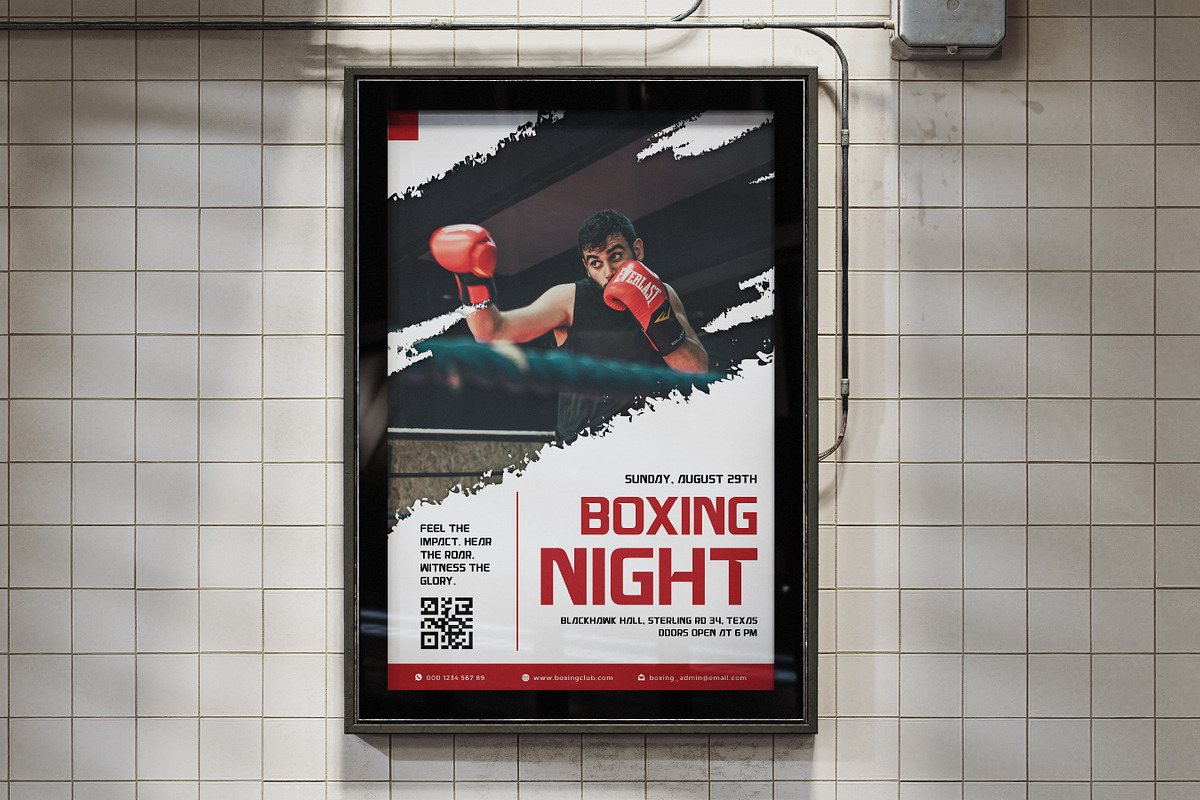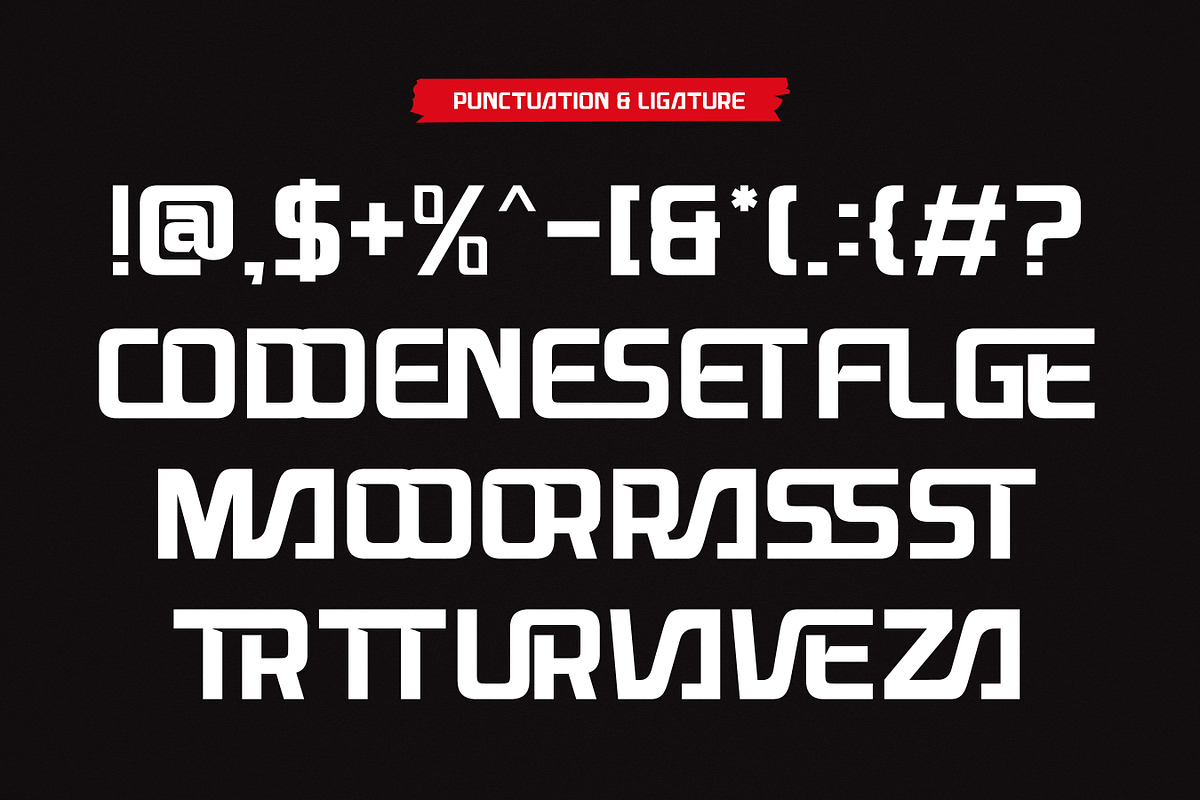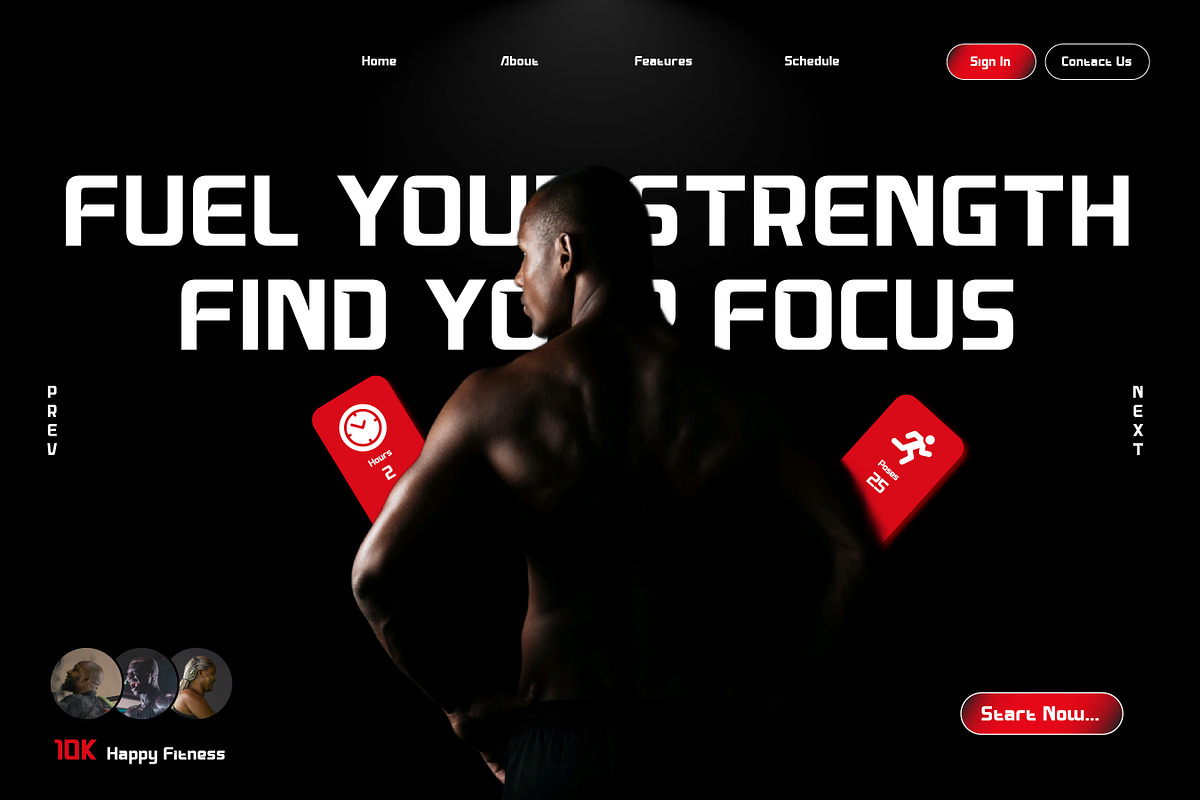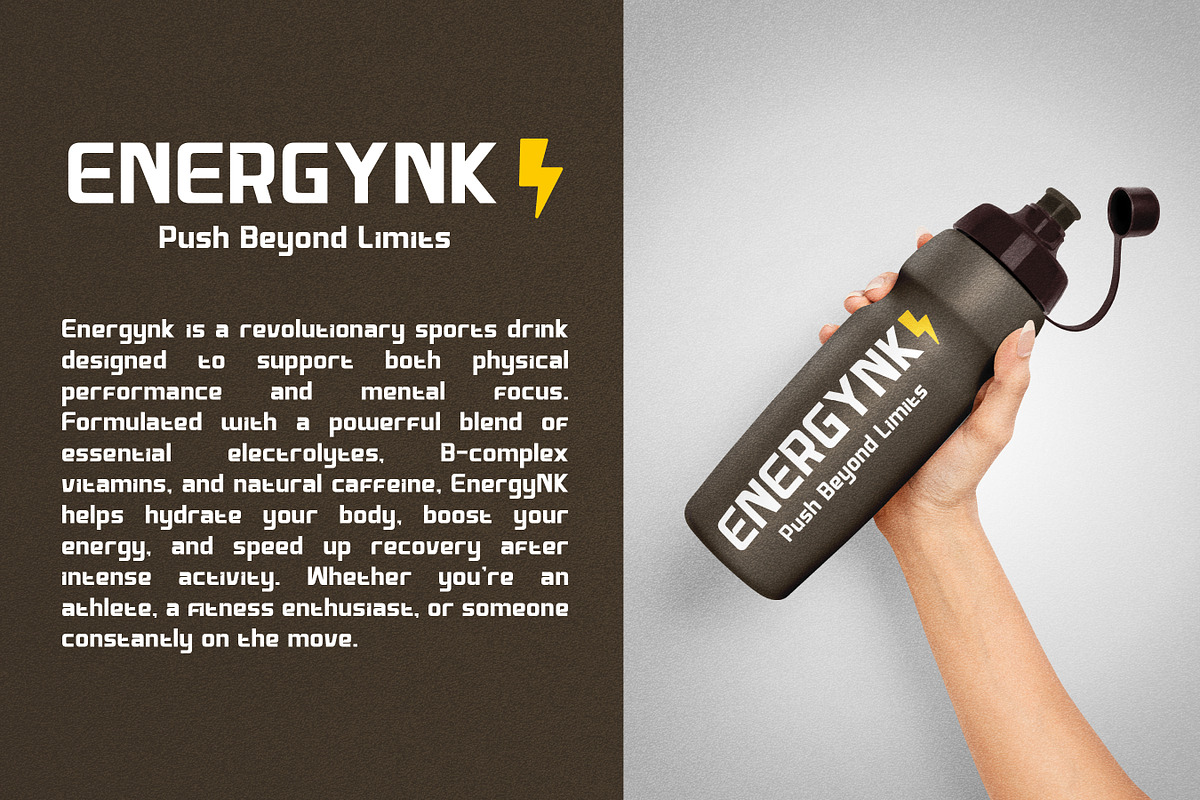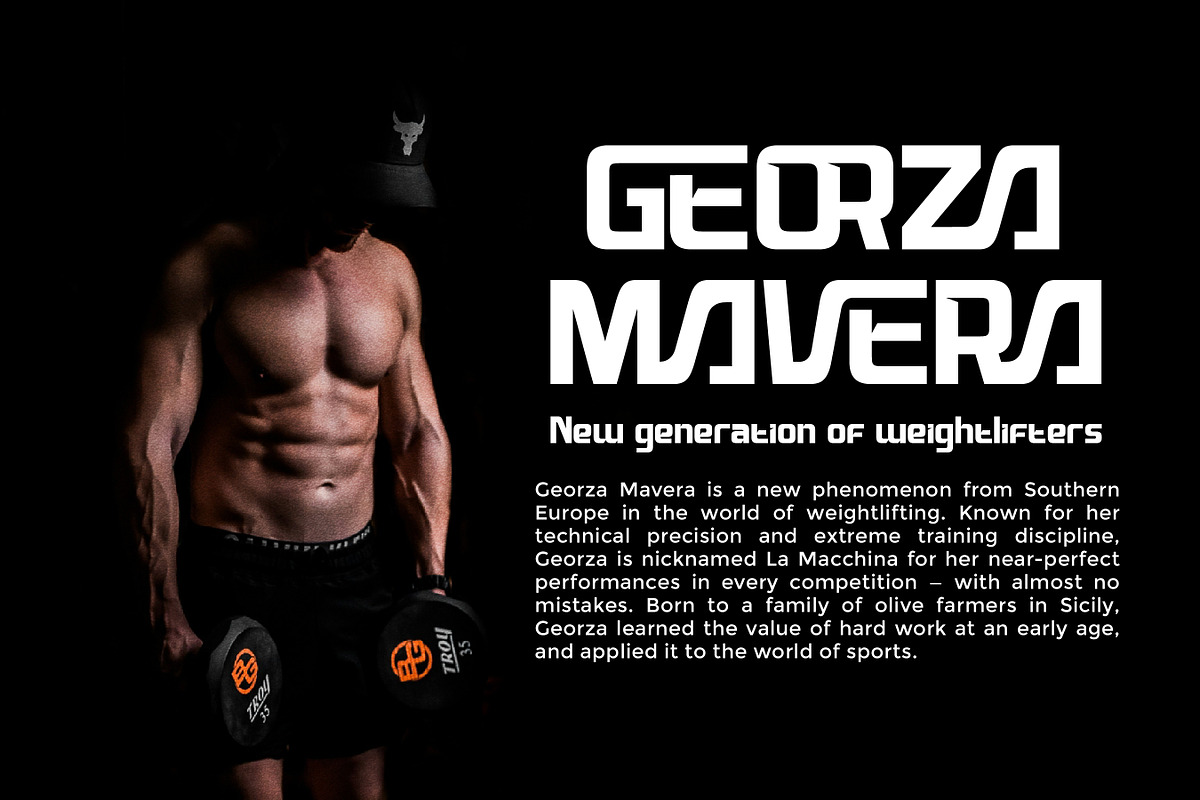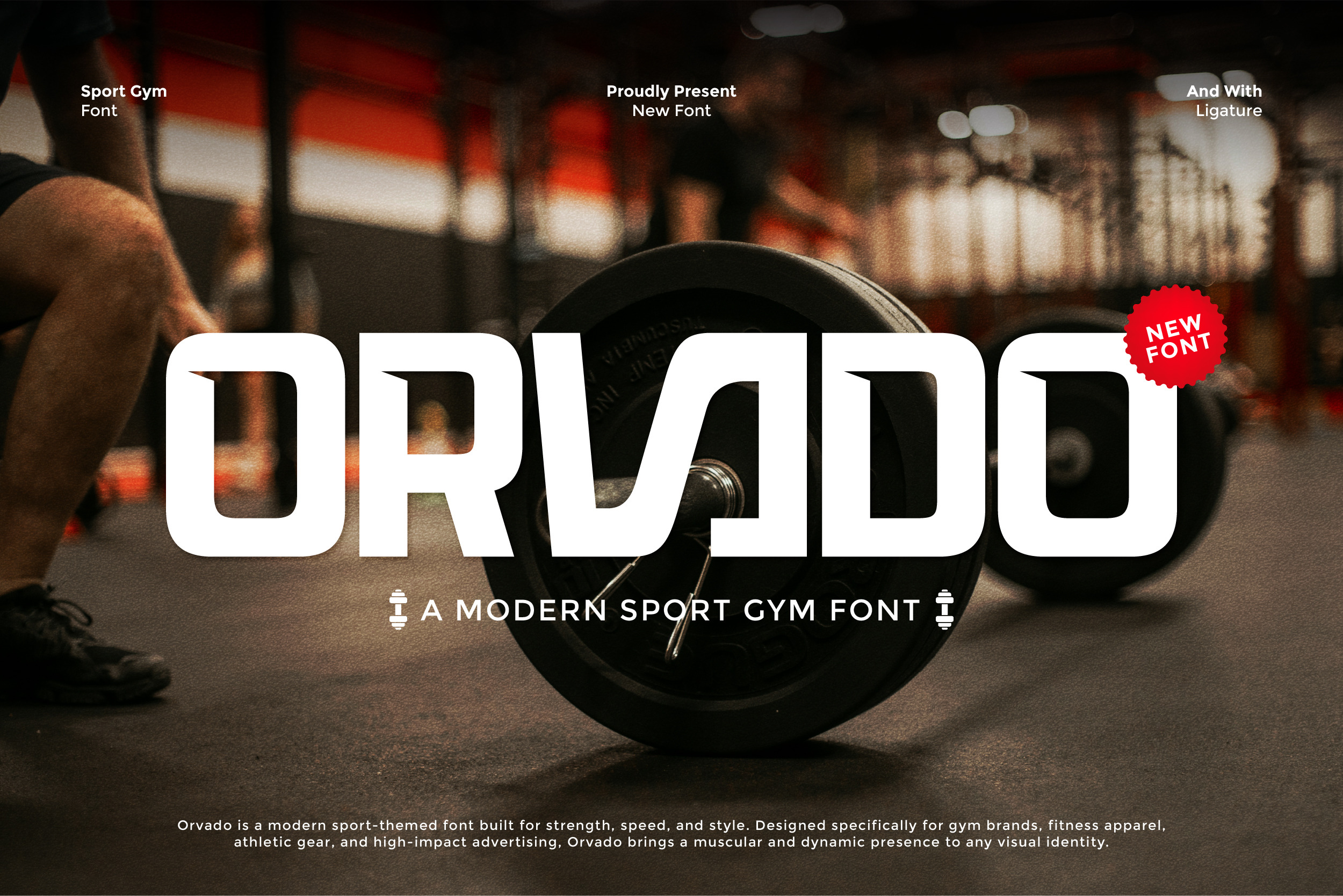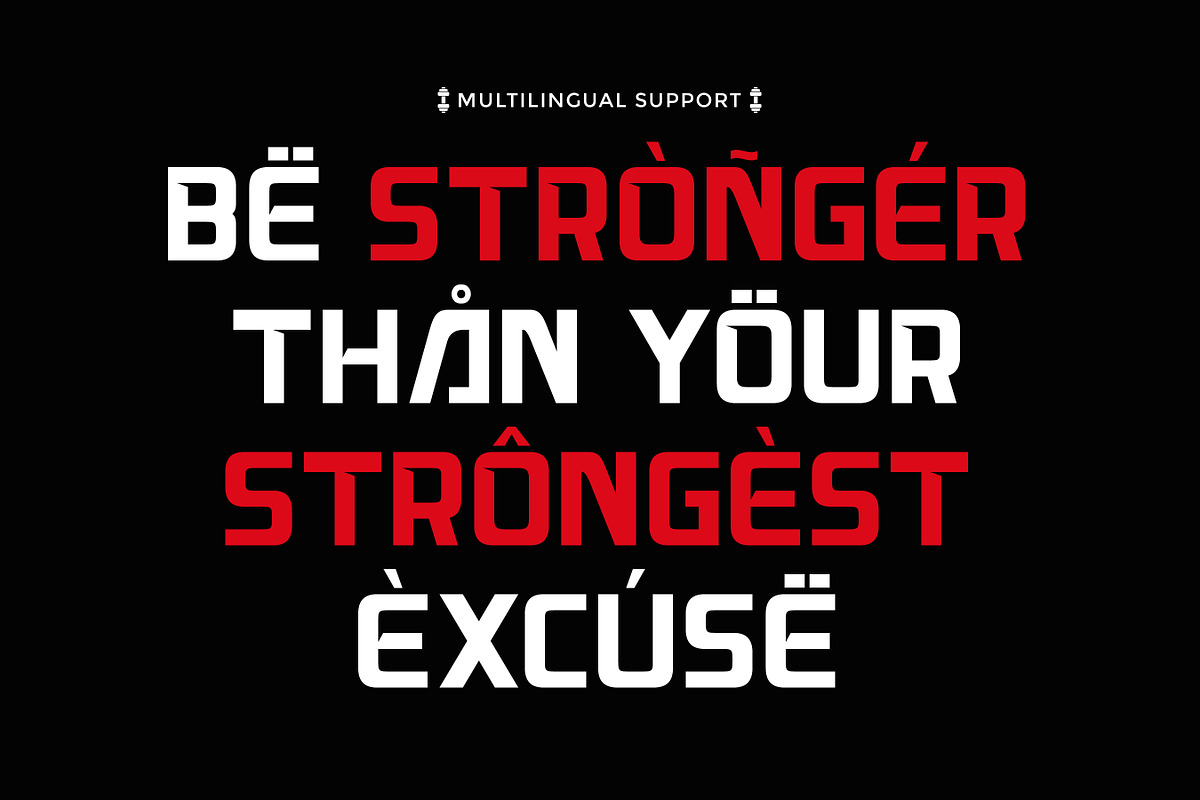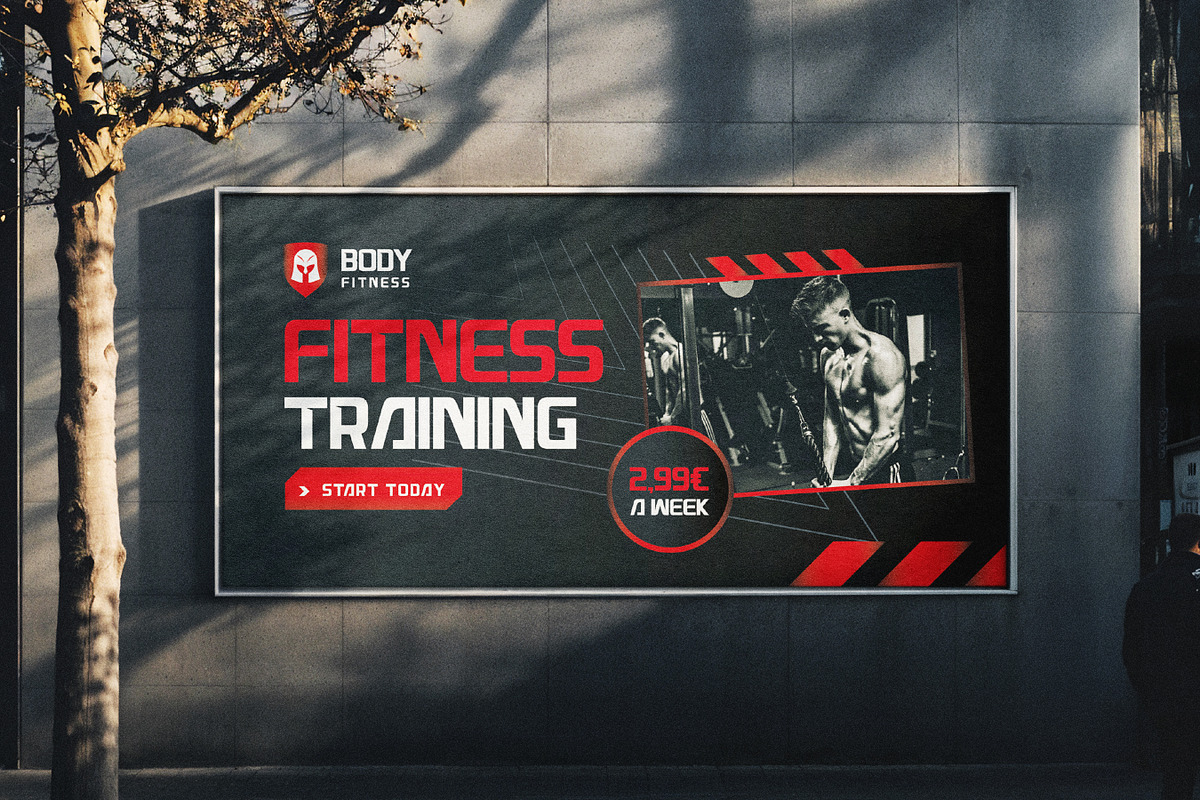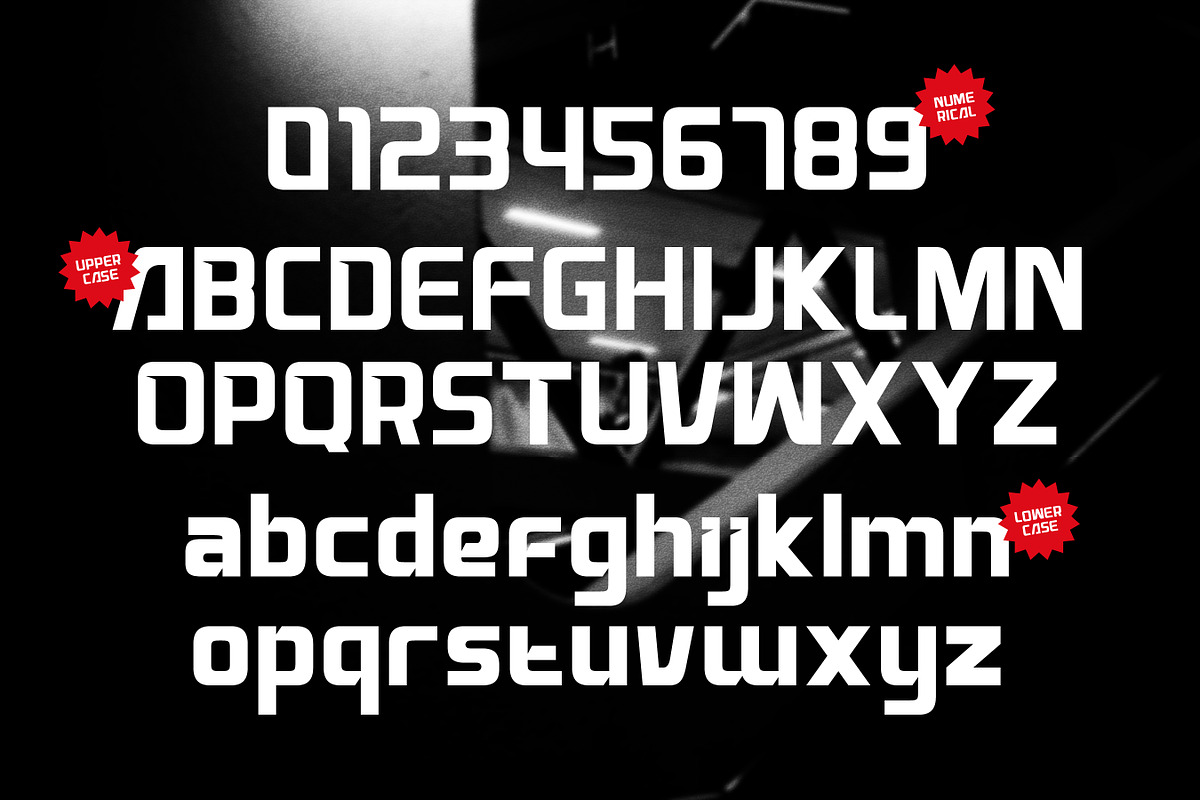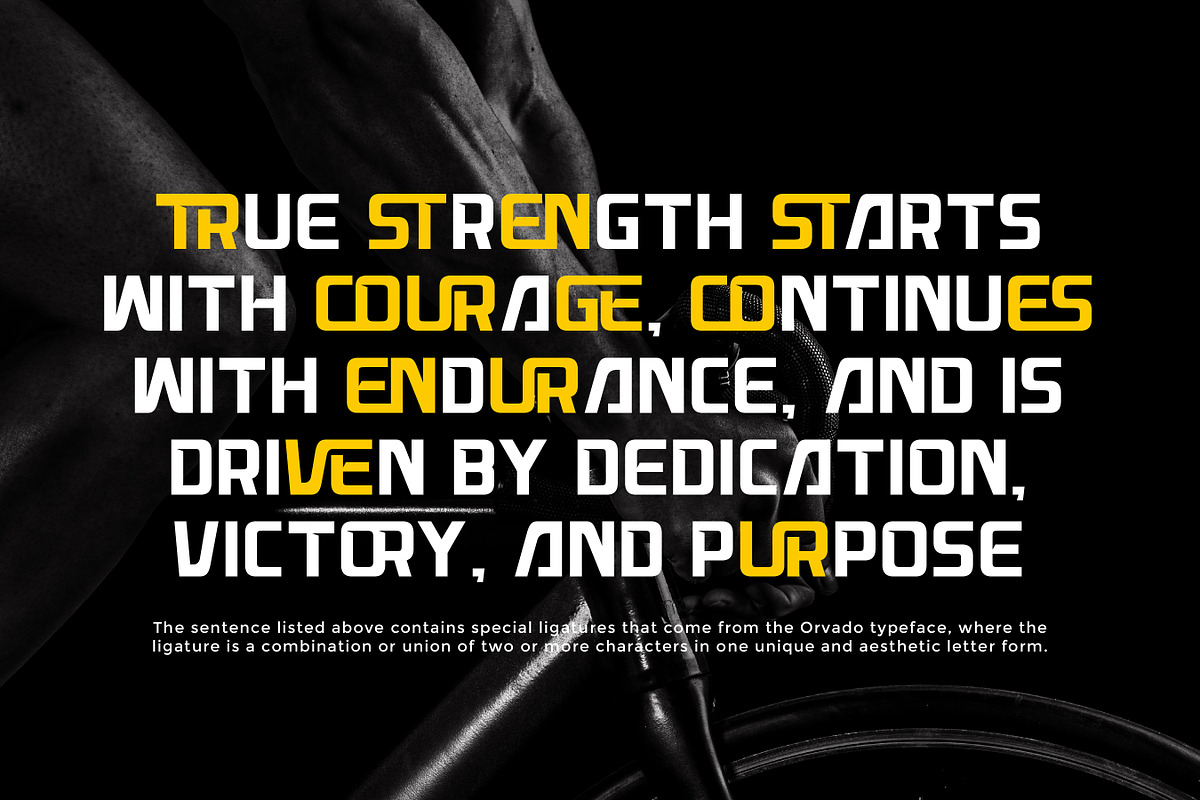
Ovardo - Modern Sport Gym Font
ORVADO – Modern Sport Gym Font
ORVADO is a modern display font crafted for the world of sports, gym, and dynamic branding. With its bold structure, sharp edges, and powerful presence, ORVADO brings energy and strength to every design it touches. Whether you're working on athletic apparel, gym promotions, or bold logo projects, ORVADO delivers impact and clarity in every letterform. It captures the essence of movement and discipline, making it a go-to choice for modern fitness brands and high-intensity design concepts.
Who Should Use ORVADO?
ORVADO is made for designers, brands, and creators who want to bring bold energy and a modern athletic vibe to their work. Whether you're building a fitness brand, designing gym posters, creating team logos, or crafting motivational merchandise, ORVADO is the perfect match for strong, standout visuals.
A Must-Have Font for Brand, Logo, and Sport Creators and Designers
ORVADO is the perfect choice for designers and creators who want to elevate their sport-inspired branding. With its bold and energetic form, this font brings a modern edge to fitness logos, gym merchandise, team identities, and high-impact marketing. A must-have for those building brands that embody strength, speed, and determination.
Why Choose ORVADO for Brand and Logo Projects?
ORVADO delivers a dynamic, confident presence that’s perfect for modern branding. Its bold and sporty aesthetic makes it ideal for gym logos, fitness brands, activewear, and energetic design themes. Whether you're creating a logo, a headline, or promotional material, ORVADO ensures your message comes across with power, precision, and a sleek contemporary style.
Suitable For:
- Sport and fitness branding
- Gym and workout apparel
- Athletic team logos and identities
- Energy drink or supplement packaging
- Bold posters and event promotions
- YouTube thumbnails and content for fitness creators
- Gaming and esports team branding